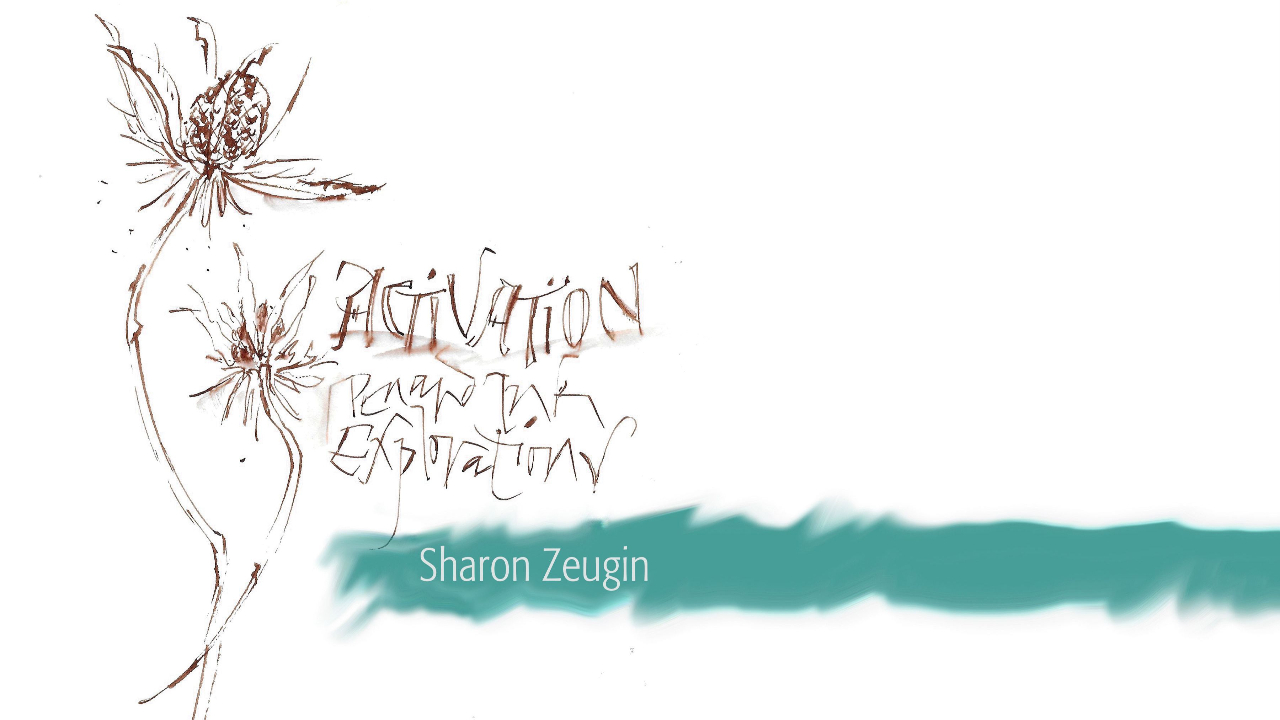
Revisit and begin again, with gesture.
But first...
Activate!
Let's revisit our writing with gesture.
In this 2-hour session, remarkable and unremarkable tools are invited to this creative session.
Something as simple as a Bic pen or a water-soluble fountain pen to create.
Sharon will demonstrate how she integrates funky capitals and lowercase handwriting with gestural drawing of a thistle. You may bring a simple flower or object that inspires you.
Join us and experience the magic of lettering as a path to self-discovery and artistic growth. Together, we’ll uncover what happens when we activate the ink on the page.